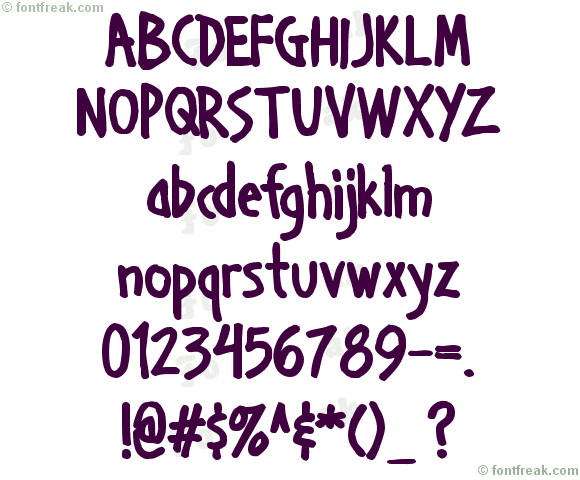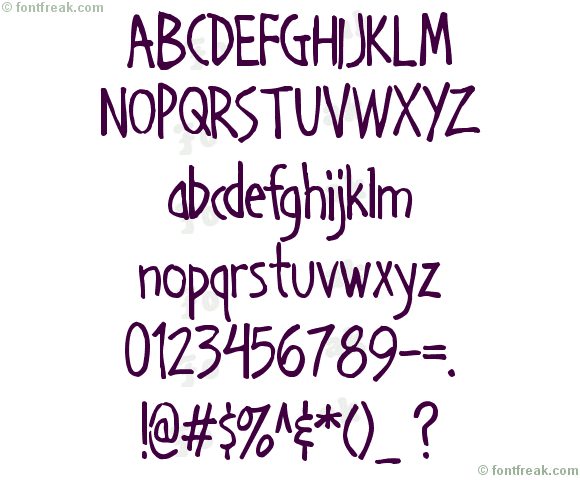
Handage AOE Bold
Handage AOE
Handage, designed by Astigmatic One Eye, is a charming handwritten font that captures the essence of playful elegance. Released in 1999, this freeware typeface showcases a unique blend of spontaneity and sophistication, making it a delightful choice for diverse design projects. Handage features a medium stroke weight with gentle contrast, creating a visually appealing rhythm that draws the eye without overwhelming the viewer. The character spacing is well-balanced, allowing for easy readability while maintaining a casual, inviting feel. The font's decorative elements, including subtle flourishes and organic lines, enhance its handwritten quality, giving it a personal touch that resonates with audiences.
This versatile font is ideal for various applications, including wedding invitations that require a touch of romance, movie posters that benefit from an artistic flair, and restaurant menus that aim to evoke a cozy atmosphere. Handage also shines in greeting cards and social media graphics, where its informal yet polished style can help convey warmth and approachability. The target audience for Handage includes graphic designers looking to elevate their projects, small business owners aiming to create a memorable brand identity, and content creators seeking unique typography for their online presence.
What sets the Handage font apart is its ability to blend artistry with functionality. Unlike many handwritten fonts that can be difficult to read in longer texts, Handage maintains clarity while exuding a relaxed charm. This makes it an excellent choice for both print and digital mediums. Whether you're designing a heartfelt invitation or crafting engaging marketing materials, Handage offers a distinctive voice that stands out in any setting. For those interested in exploring this captivating typeface, a Handage font free download is readily available, allowing you to incorporate its unique style into your next creative project.